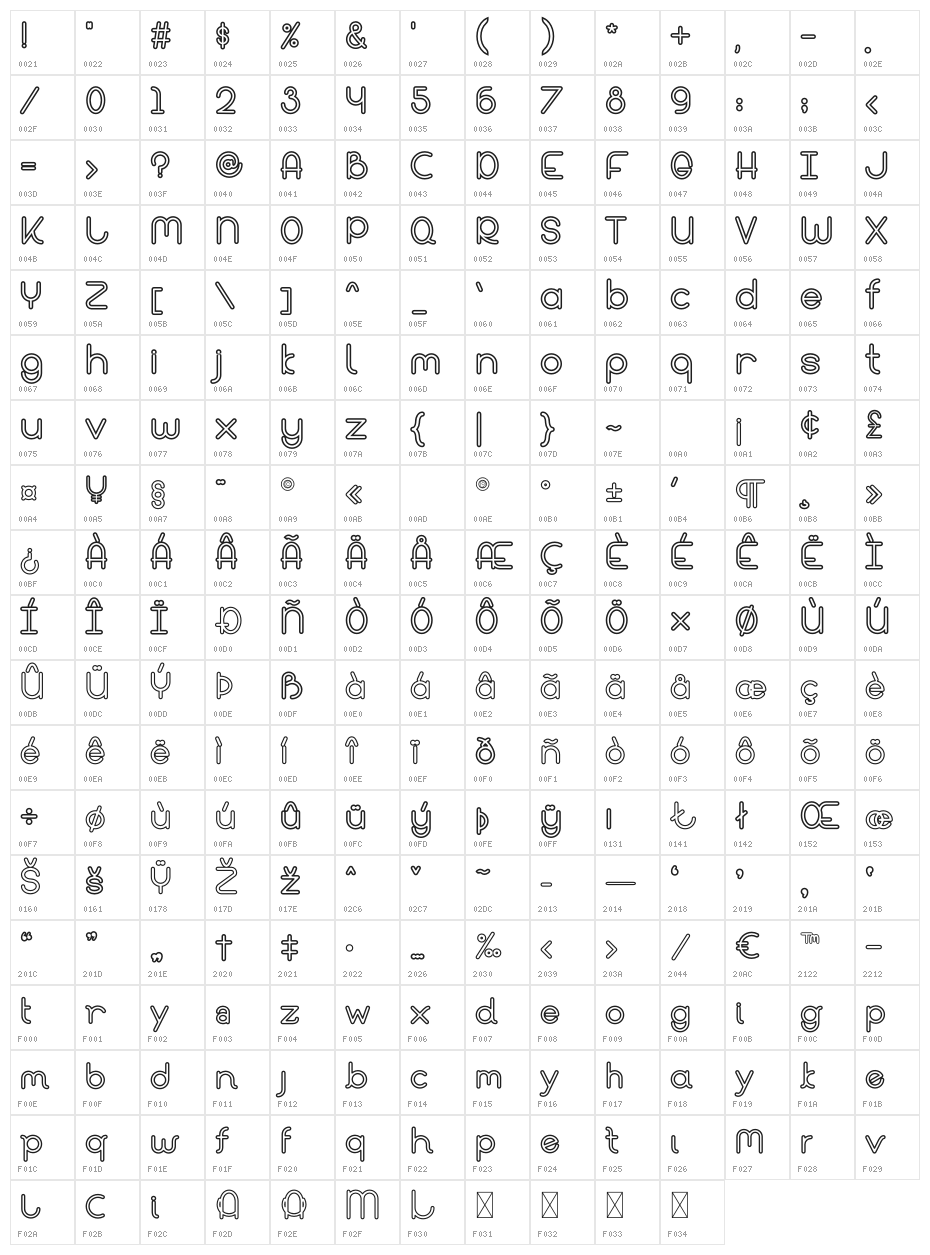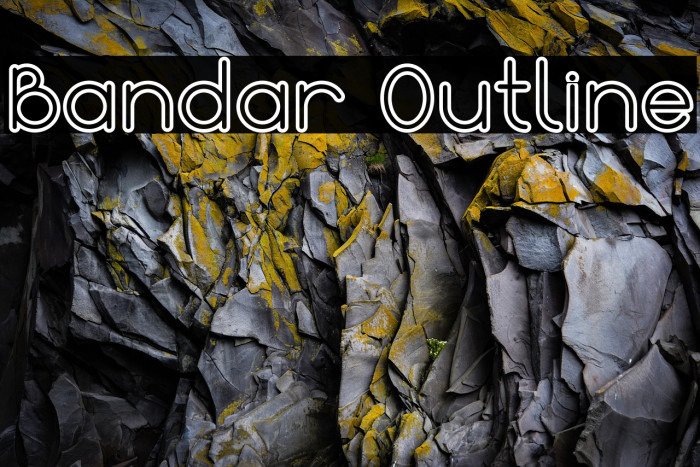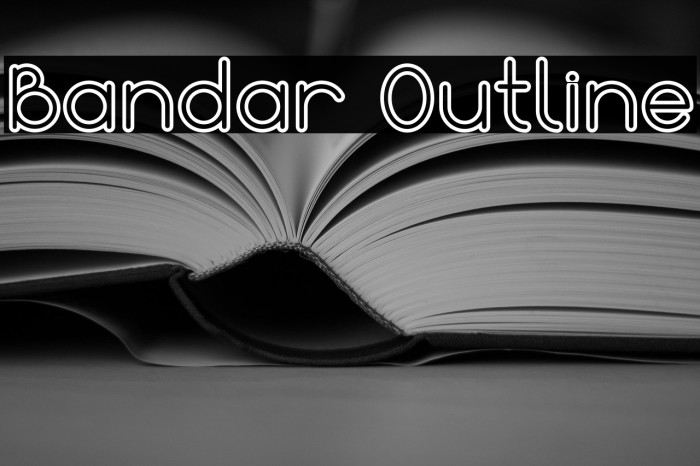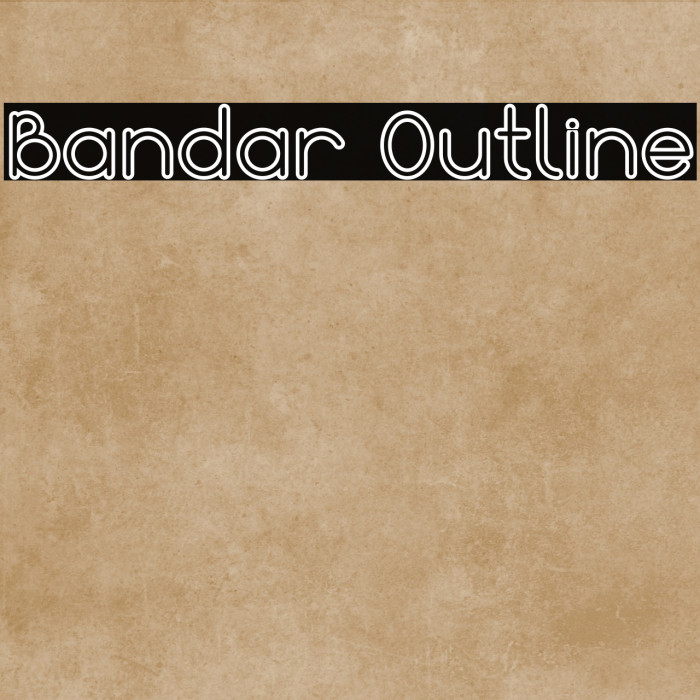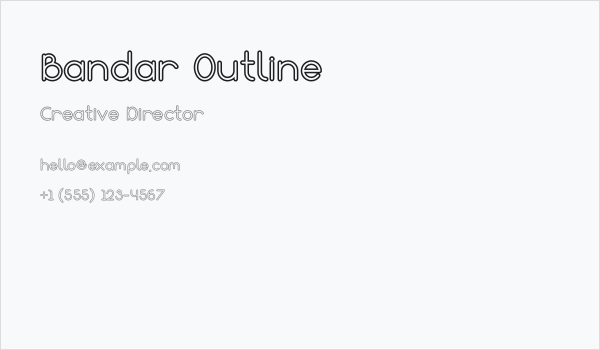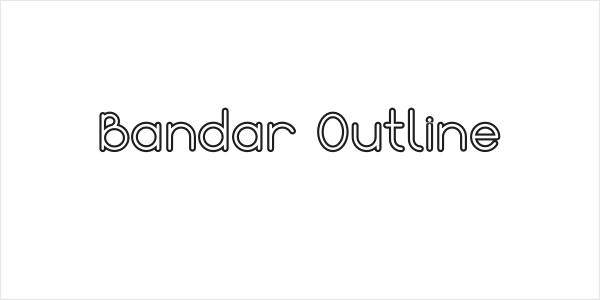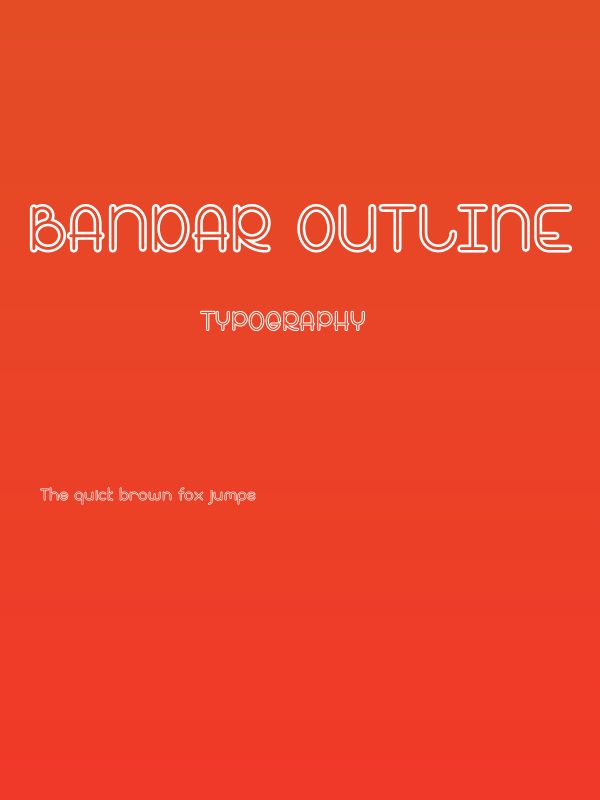
Bandar Outline Font
Bandar Outline Description
This font features a unique outline style that gives it a modern and playful appearance. The characters are formed with consistent, rounded outlines that create a hollow effect, making it stand out in any design. The uppercase and lowercase letters maintain a uniform width, contributing to a cohesive look. The numerals and special characters are designed with the same outline technique, ensuring visual harmony across all elements. This font's distinct style is both eye-catching and versatile, suitable for various creative applications.
| Proposed Projects | Ideal for branding, posters, headlines, and creative projects that require a bold, modern touch. |